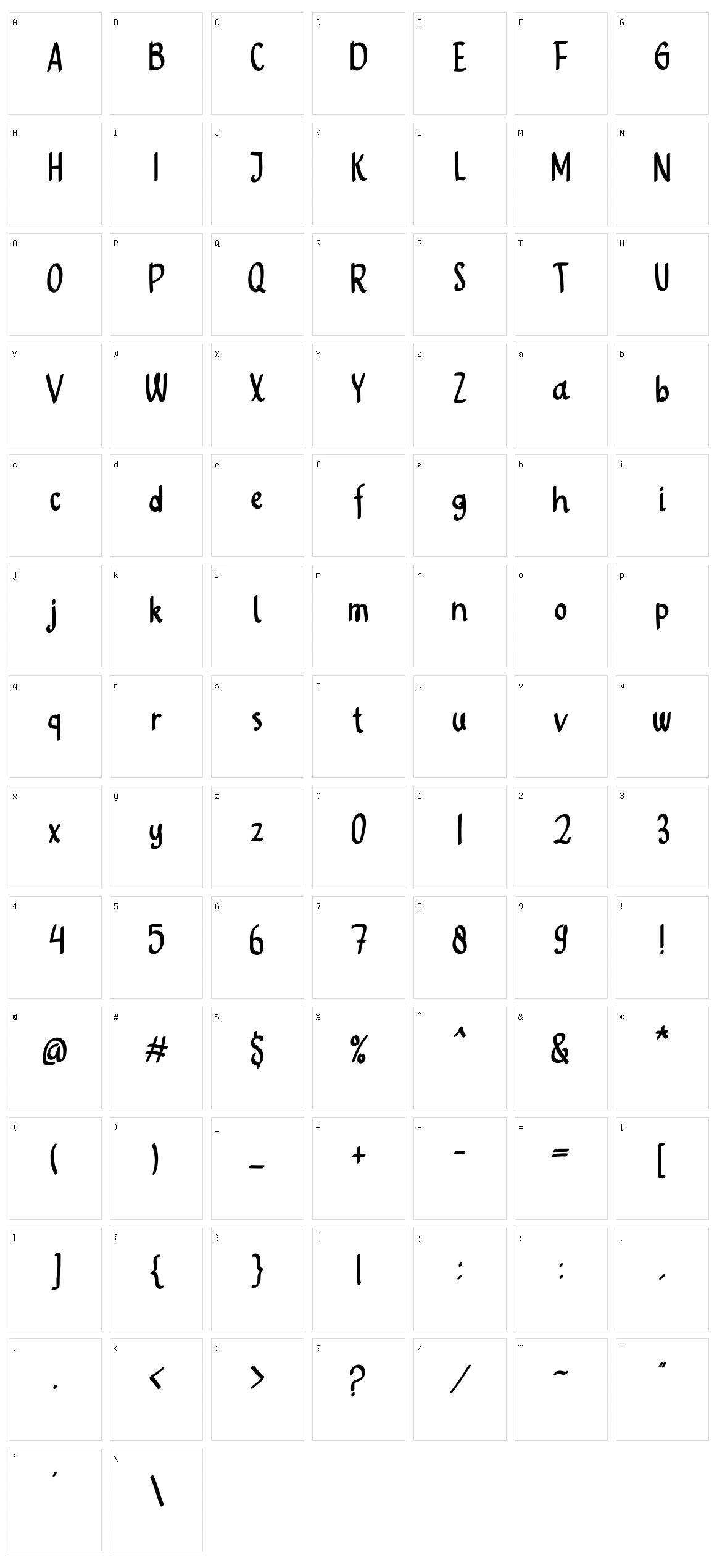
The free font Make Me Happy is carefully designed by Eddy Goodboy, showcasing a thoughtful balance of creativity and usability and falls under the Script font style. When you download the ZIP file, it contains only 39.91 KB of font files, making it lightweight and quick to download. Please review the license details below to understand permitted usage and distribution rights. If license information is not available, we recommend using this font for personal projects only or contacting the author directly for commercial usage permissions.